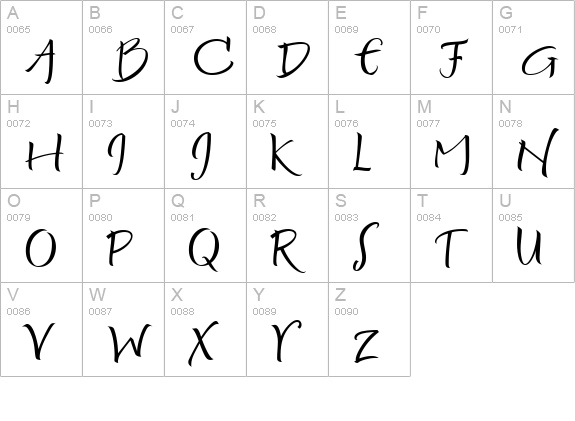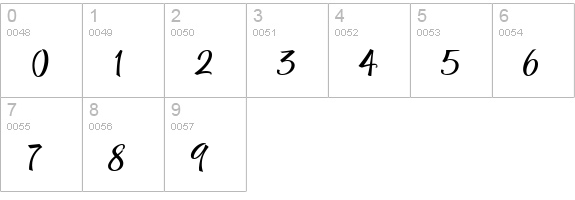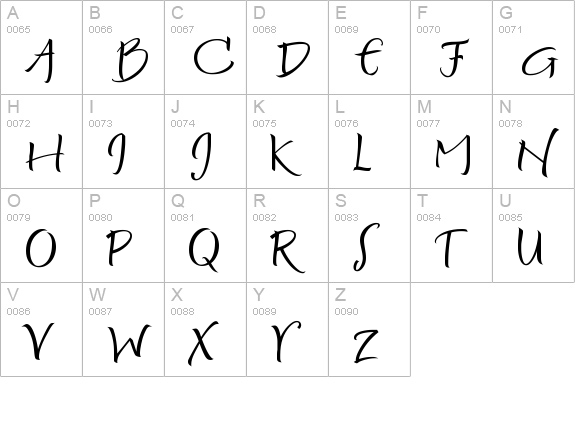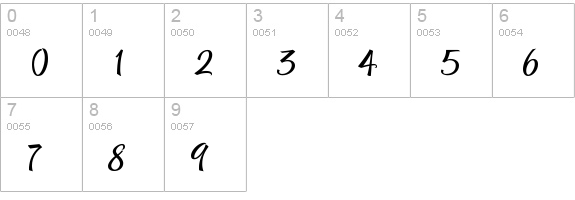
Persimmon Font Details
Introducing Persimmon, a truly captivating font that effortlessly combines elegance with a touch of modernity. With its exquisite curves and graceful strokes, Persimmon is a versatile typeface that will add a touch of sophistication to any design project. Designed with utmost attention to detail, Persimmon stands out with its clean lines and balanced proportions. The carefully crafted letterforms create a harmonious balance between legibility and artistic expression, making it a perfect choice for both headings and body text. But what sets Persimmon apart is not just its aesthetic appeal – it's also the fact that it is available for free! Yes, you heard it right. Persimmon is freely available to download at FontsMarket.com, a leading platform for premium fonts. Now, you can enhance your creative projects without breaking the bank. Whether you're designing a logo, a website, or a printed piece, Persimmon will bring a touch of elegance and sophistication to your work. Its versatility allows it to seamlessly adapt to various design styles, from minimalist to ornate, ensuring that it will always make a statement. With its extensive character set and multiple weights, Persimmon offers endless possibilities for creative exploration. It includes both uppercase and lowercase letters, numerals, punctuation marks, and a wide range of special characters. This enables you to fully unleash your creativity and create designs that truly stand out. Persimmon is not just a font – it's a tool that empowers you to elevate your design game. So why wait? Head over to FontsMarket.com and download Persimmon for free today. Let your imagination run wild and watch as your designs come to life with the timeless beauty of Persimmon font.